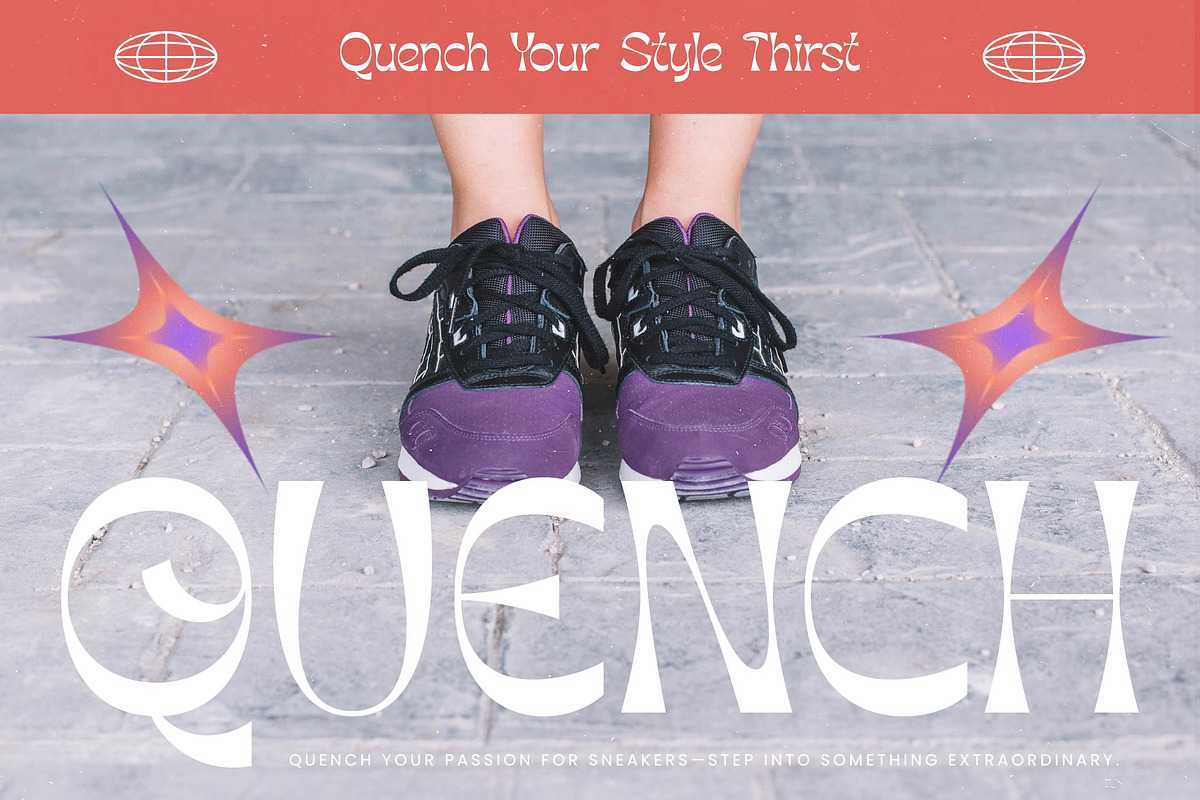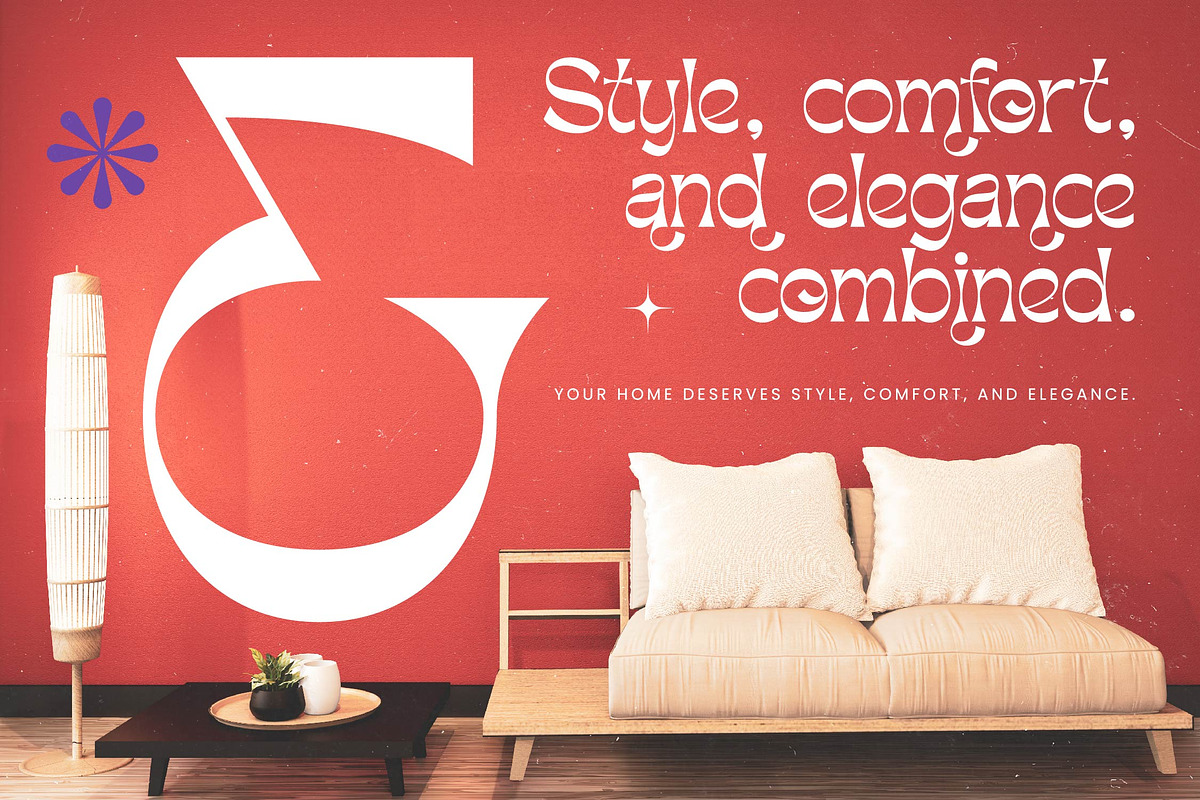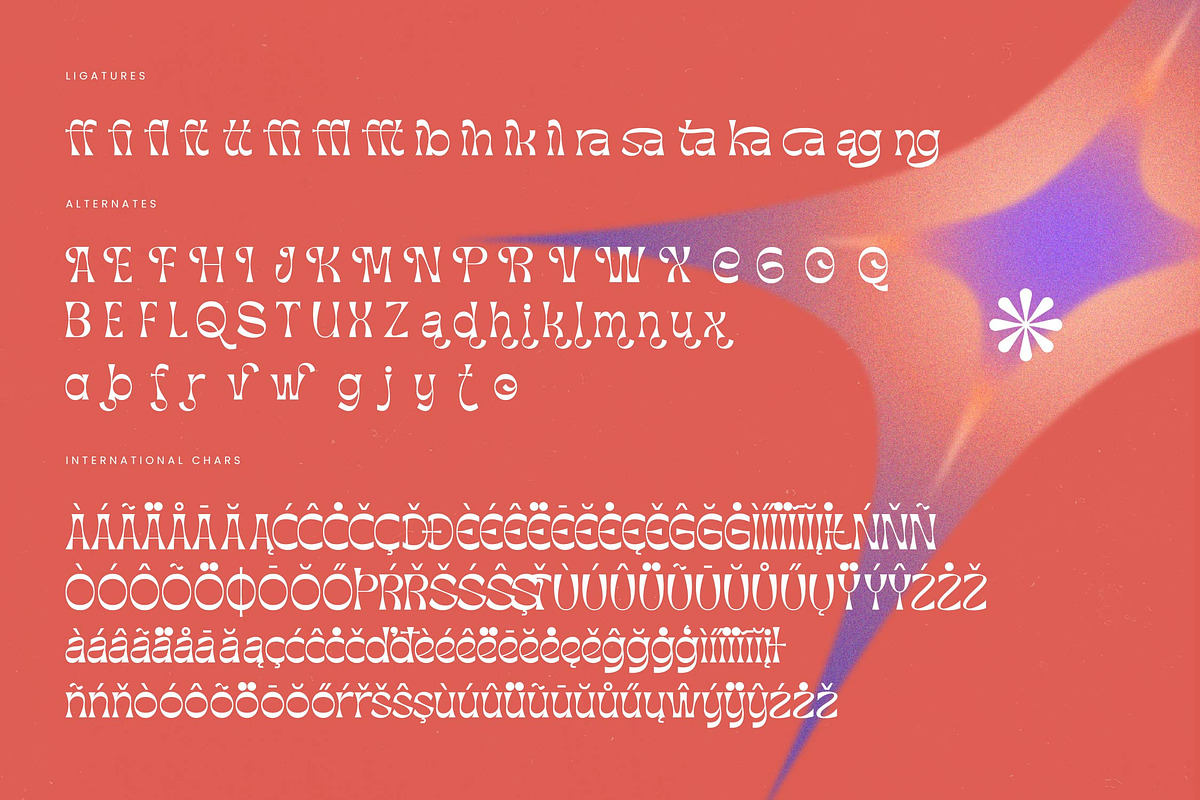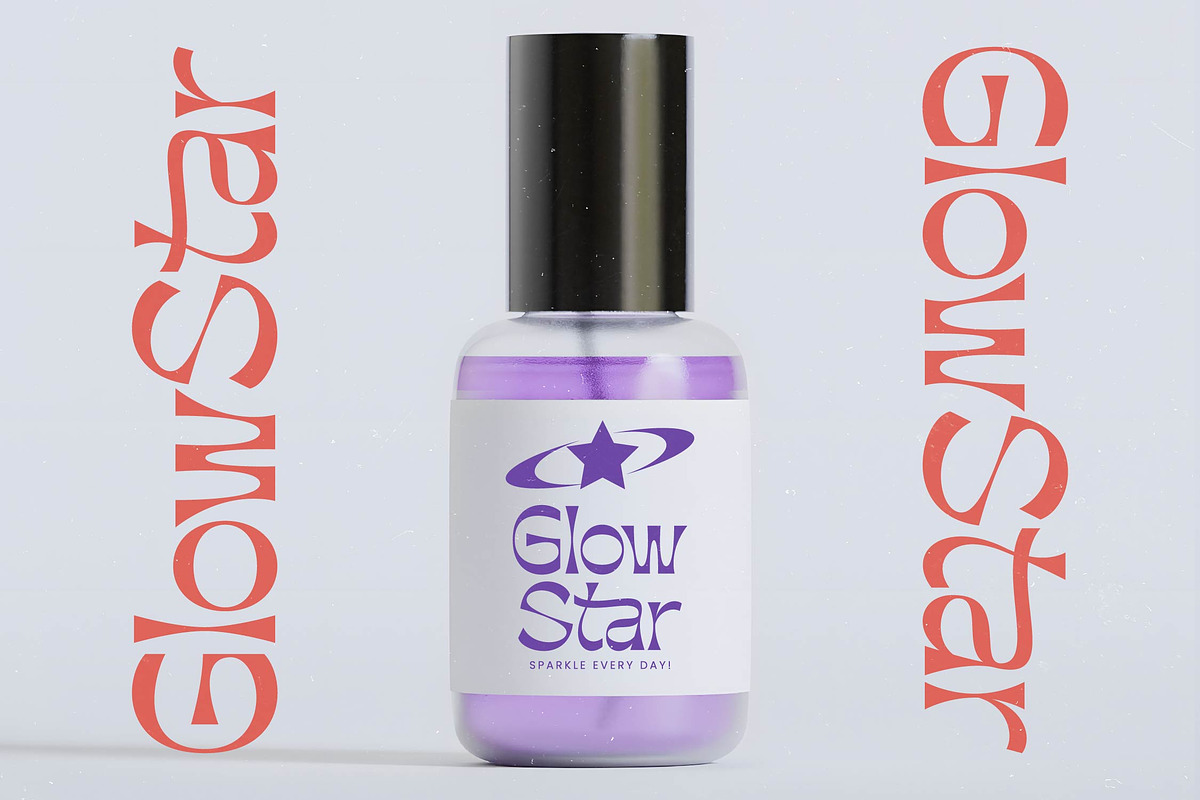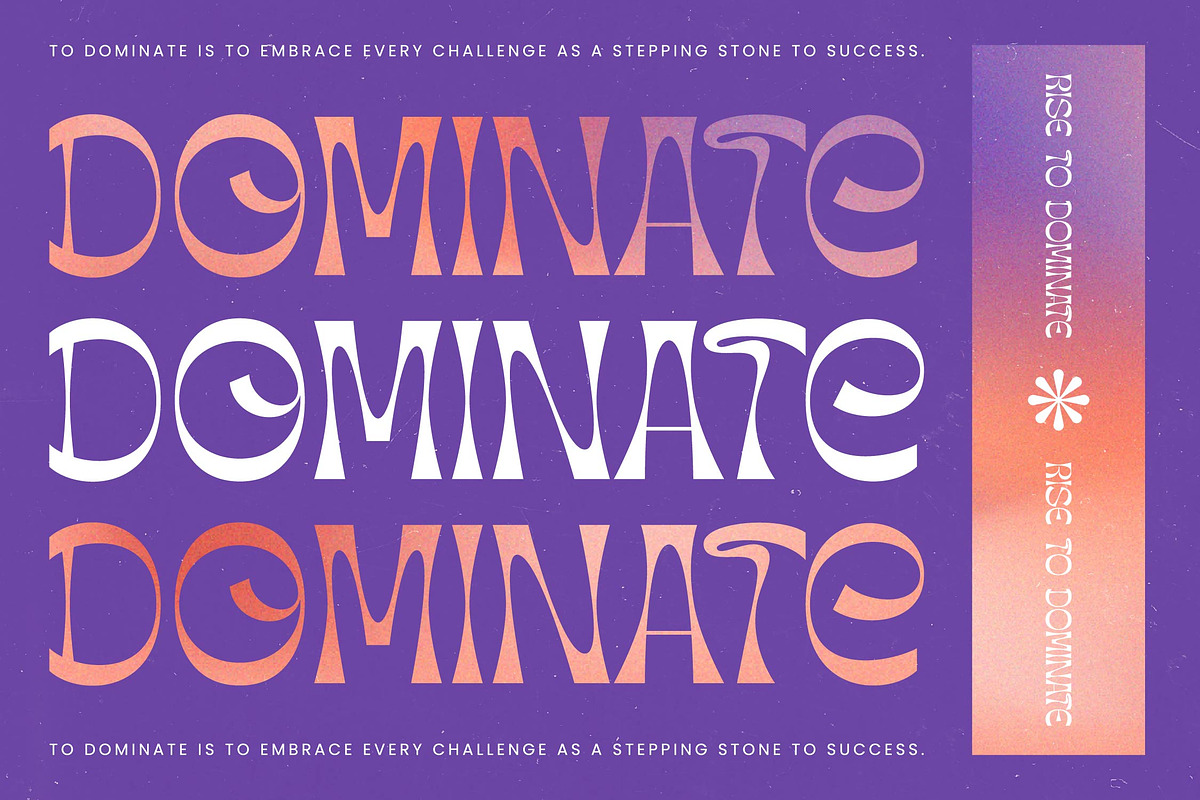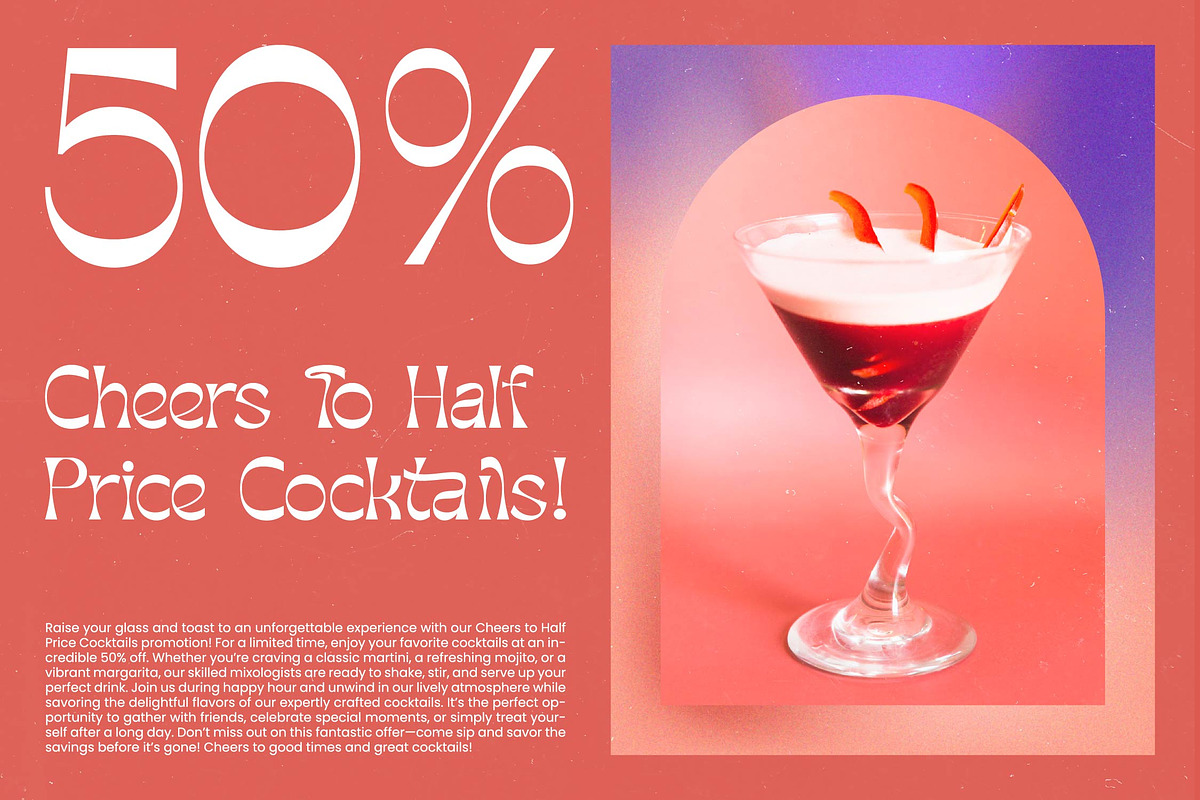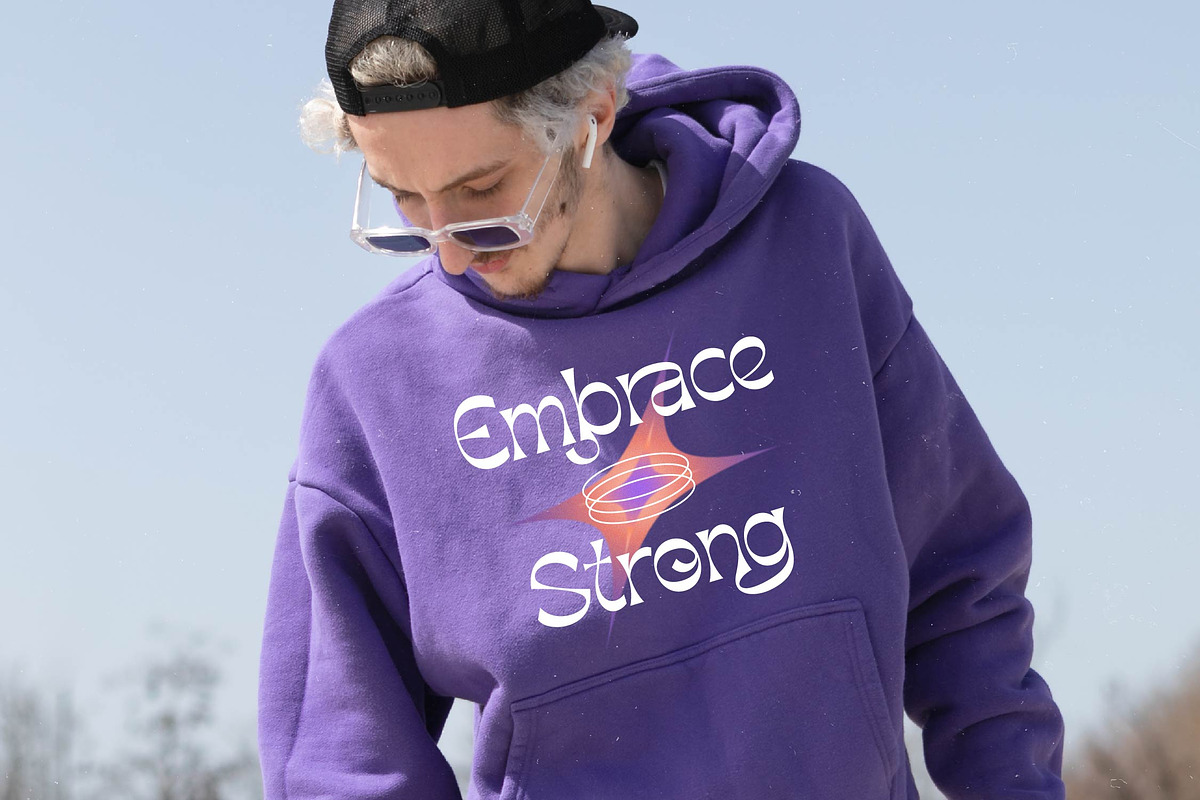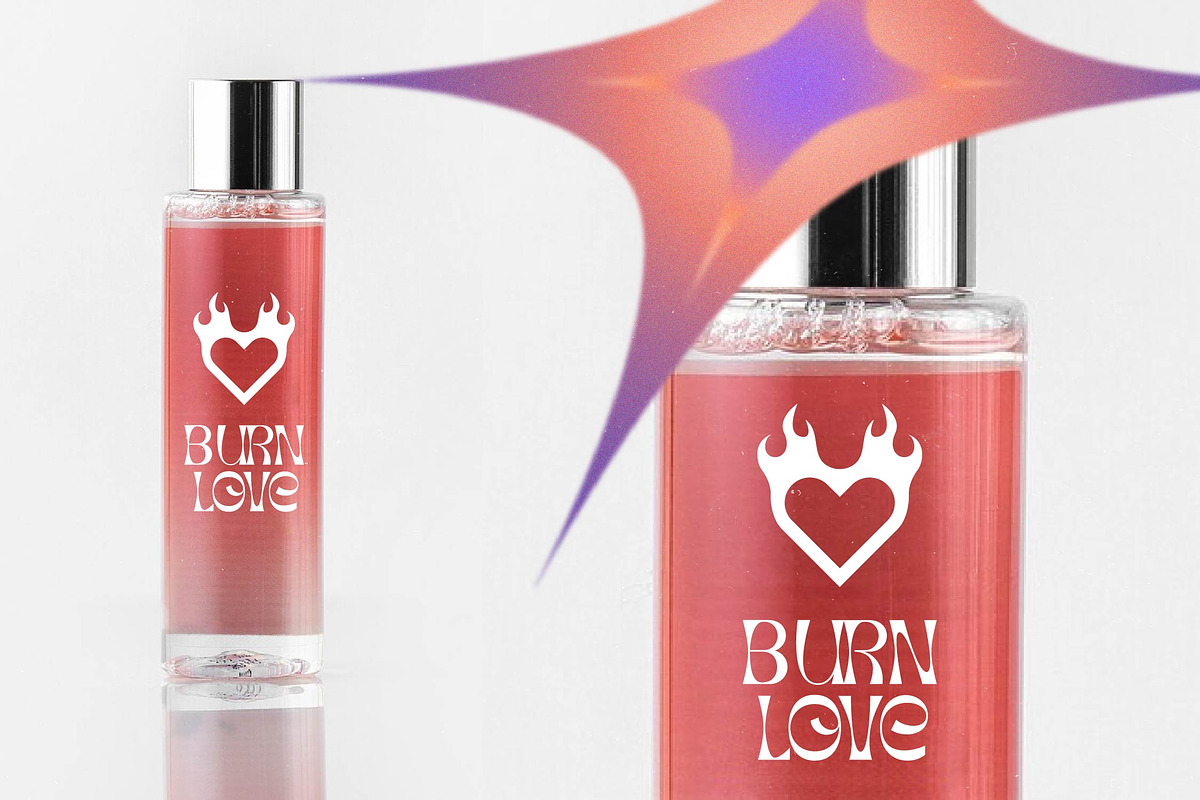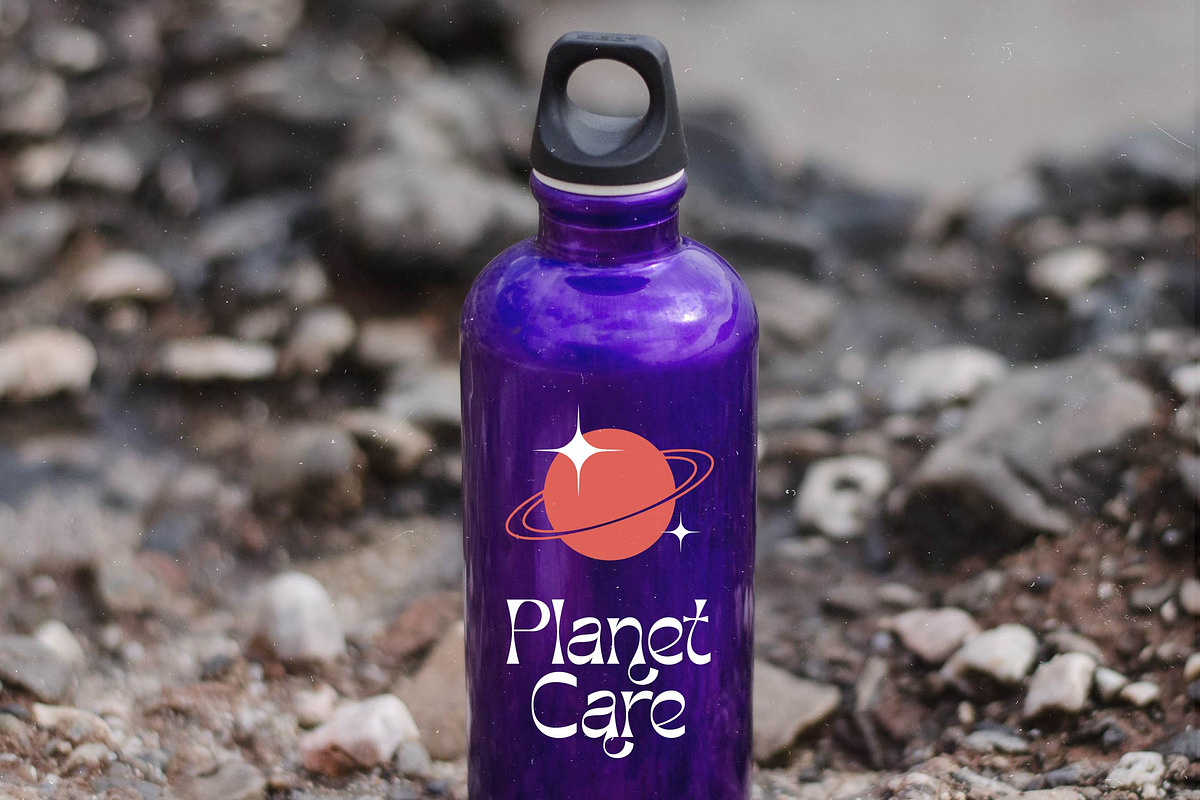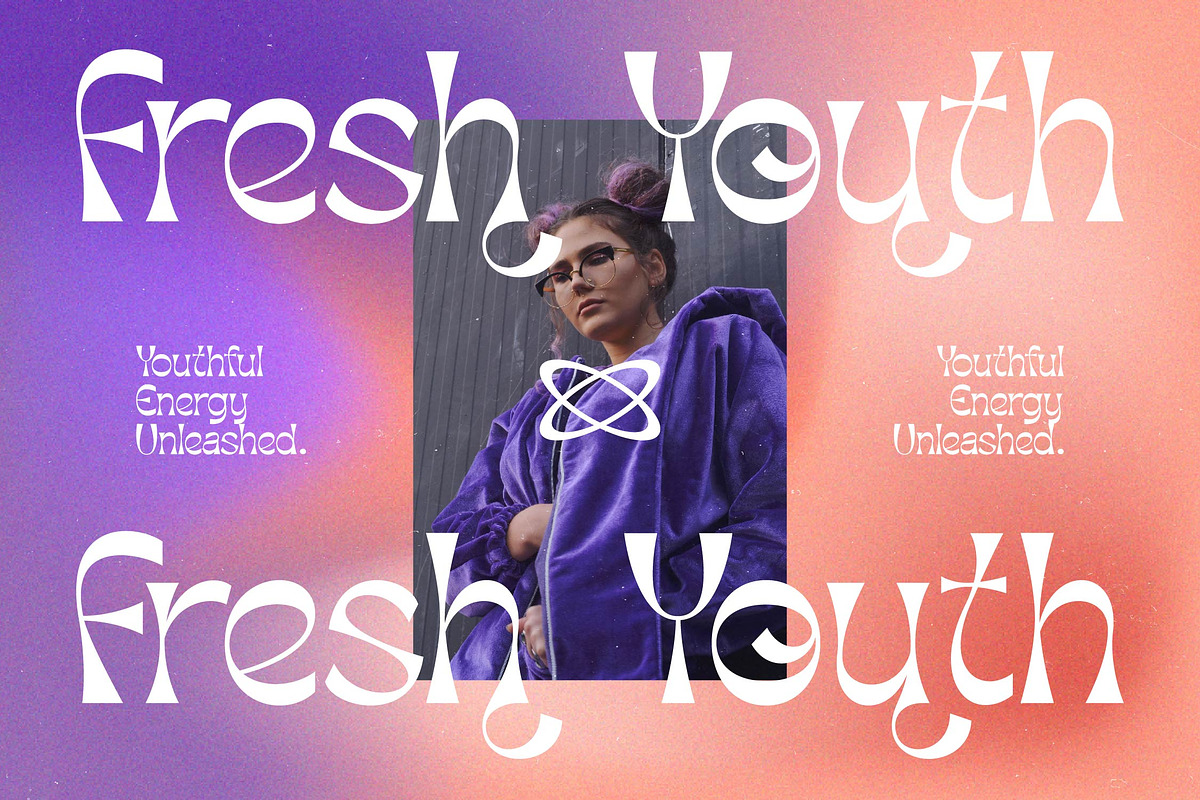
Blazing Hustle Groovy Display Font
Elevate your creative vision with the electric energy of Blazing Hustle, a typeface designed to dance off the page and command immediate attention. This font captures the pulse of contemporary design while nodding to the soulful rhythm of the past to create something entirely unique.
Drawing inspiration from the fluid motion of 70s psychedelic posters and the high-energy aesthetics of modern street style, this typeface bridges the gap between retro nostalgia and futuristic flair. Its wavy forms and liquid-like terminals suggest a world in constant, vibrant motion, perfect for brands that never stand still.
This modern serif display is engineered for maximum branding impact, offering a luxury typography feel with a whimsical twist. The high-contrast serif details and editorial font proportions ensure that every word feels curated, high-end, and intentionally playful for sophisticated projects.
Staying ahead of the modern serif trend, this typeface is the perfect answer for designers seeking editorial display fonts that break away from traditional structures. It taps into the demand for character-driven typography that prioritizes personality without sacrificing professional legibility in high-stakes environments.
Whether you are refining a bold logo design or establishing a comprehensive branding identity, this font excels in editorial layouts and luxury packaging. It is equally at home in high-end fashion lookbooks or setting a romantic yet bold tone for a modern wedding invitation suite.
This comprehensive package includes a robust set of 19 ligatures and 49 unique alternates to provide endless customization options for bespoke layouts. Full support for multilingual projects and international characters ensures your message resonates globally across all digital and print mediums.